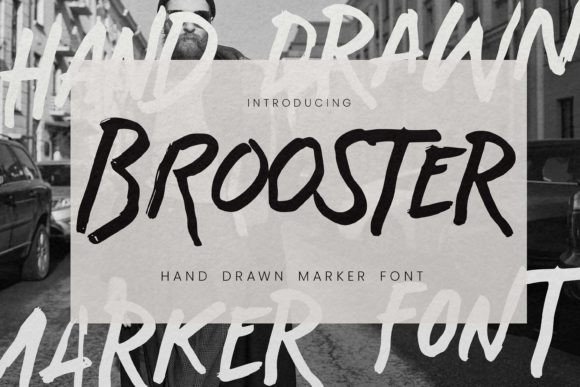
Introducing Brooster Font, a resplendently unique script font that will elevate your designs to extraordinary heights. This mesmerizing font, meticulously crafted by Gassstype Studio, captures the essence of elegance and artistry, making it the perfect choice for a myriad of creative projects.
With its graceful lines and captivating brushstroke texture, Brooster Font effortlessly adds a touch of sophistication and charm to any design. Whether you're a seasoned designer or just starting out, Brooster Font is sure to become your go-to font for creating captivating logos, unique watermarks, branding that stands out, eye-catching invitations, advertisements that pop, and product designs that exude personality.
Whether you're working on wedding stationery, designing labels for your handmade products, or creating enchanting designs for special events, Brooster Font will effortlessly add a touch of magic and artistry. Its versatility knows no bounds, making it the perfect choice for a wide range of projects.
Immerse yourself in the world of Brooster Font and let its charm and elegance ignite your creativity. Download Brooster Font today and embark on a journey of artistic expression that will leave you and your audience spellbound.
Key features of Brooster Font:
* Exquisitely crafted script font
* Perfect for logos, watermarks, branding, invitations, advertisements, product designs, stationery, wedding designs, labels, product packaging, and more
* Embodies elegance, sophistication, and charm
* Versatile and suitable for a wide range of creative projects
* Adds a touch of magic and artistry to your designs